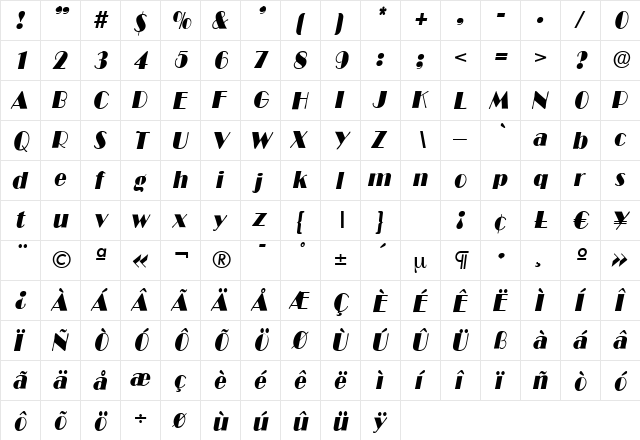
B821-Deco Italic
Design Context for B821-Deco Typeface
B821-Deco is a composed and adaptable typeface that performs quietly and consistently across a wide range of design contexts. The dynamic lean of this cut emphasises speed and emphasis in any layout.
Pro Tip: Try B821-Deco for annotation and caption copy alongside an upright companion — the contrast in angle creates a dynamic but ordered typographic system.